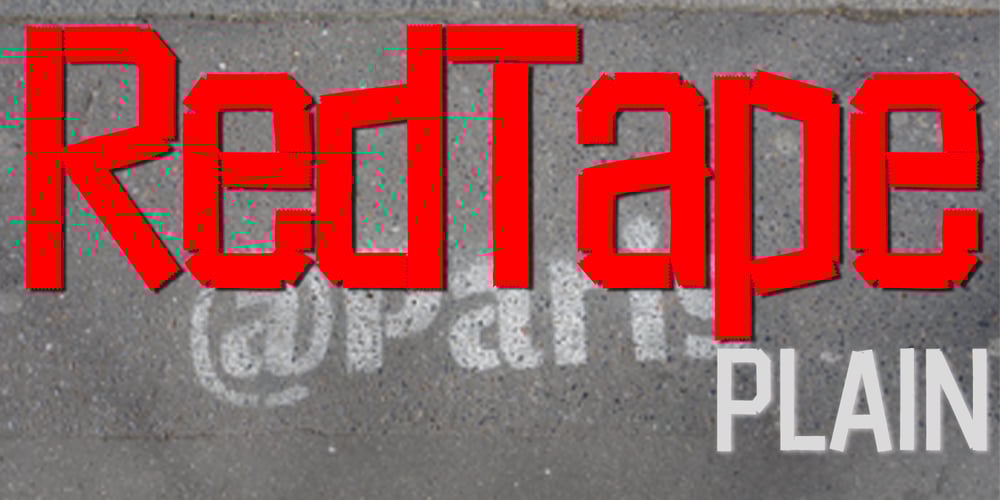
Red Tape
Red Tape font
Red Tape Font Family was designed by Gert Wiescher and published by Wiescher Design. Red Tape contains 3 styles and family package options. Red Tape is three fonts that were designed by sticking letters together with red tape. It makes for a wonderful makeshift set of fonts. And I really enjoyed sticking those letters together. Of course I did it on screen using bits and pieces of scanned red tape. Just use it as you like, I won’t give you any red tape in how to use the fonts. »Red Tape« is since February 2012 on permanent display in the »German National Library« – next to the likes of »Bodoni«, »Garamond« and »Helvetica« – being part of the exhibition about type through the ages. Your (now a little famous) unproblematic type designer, Gert.